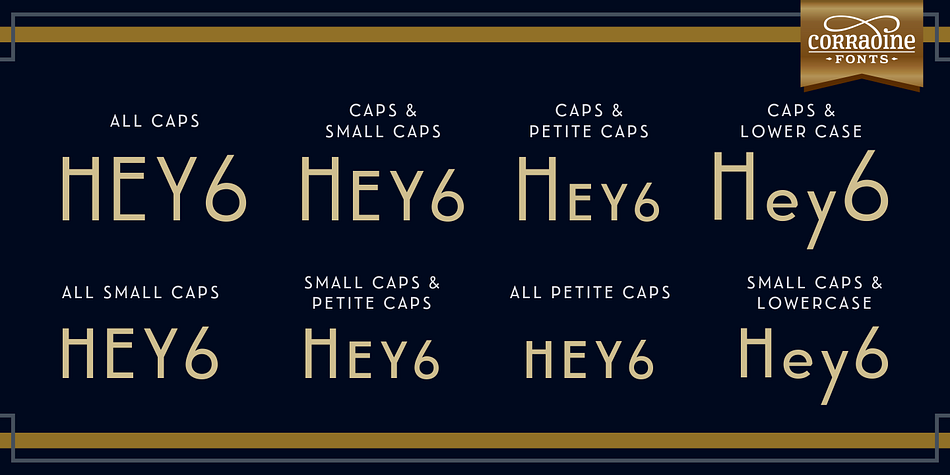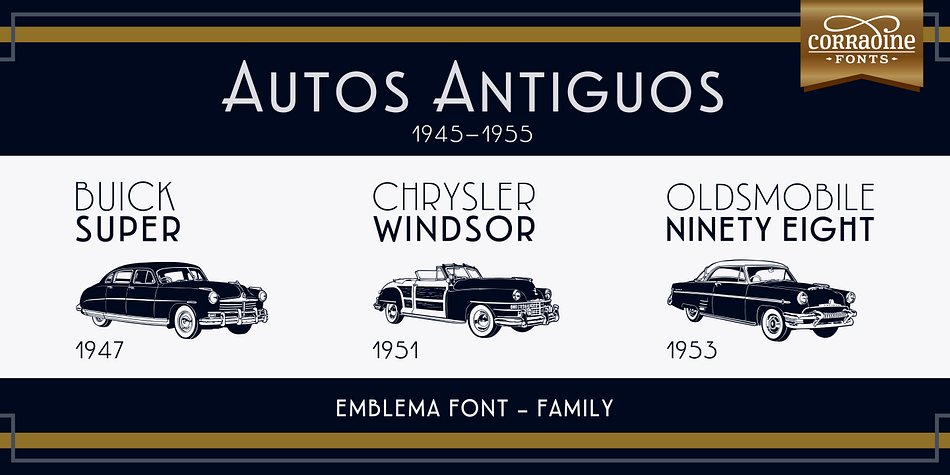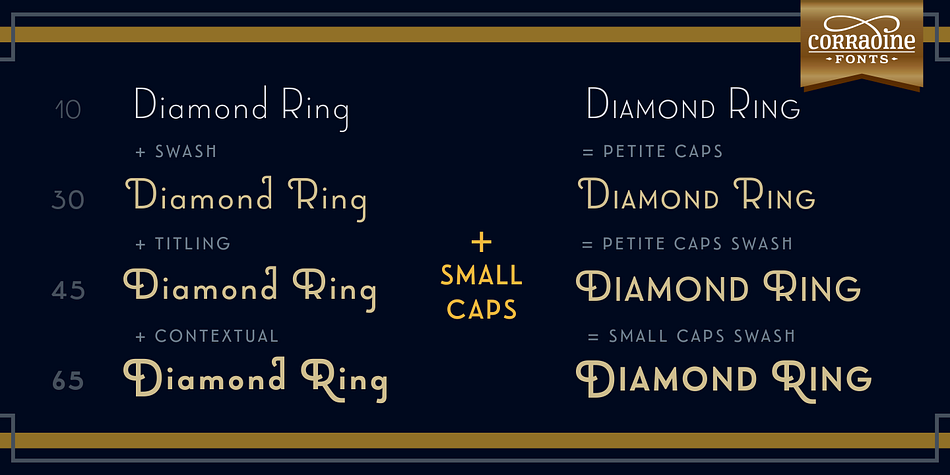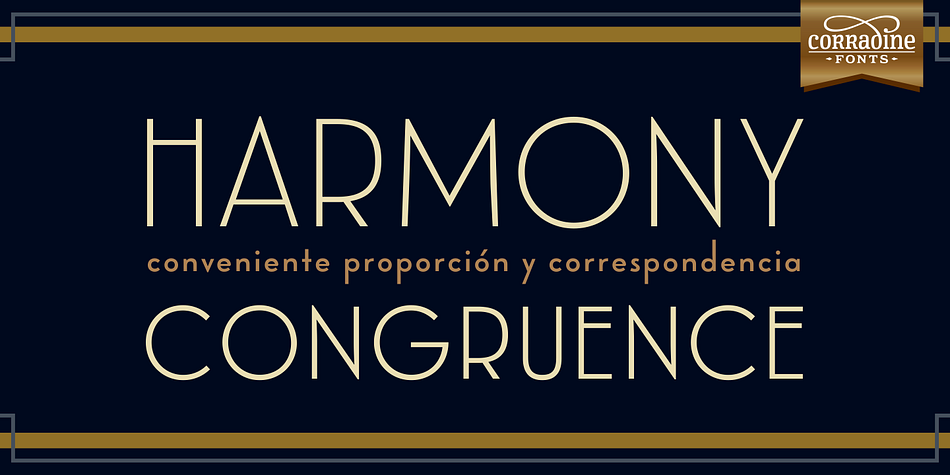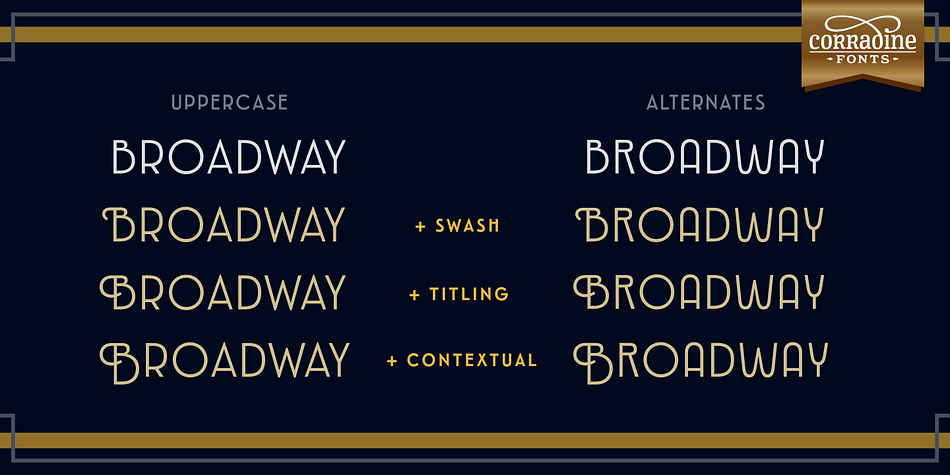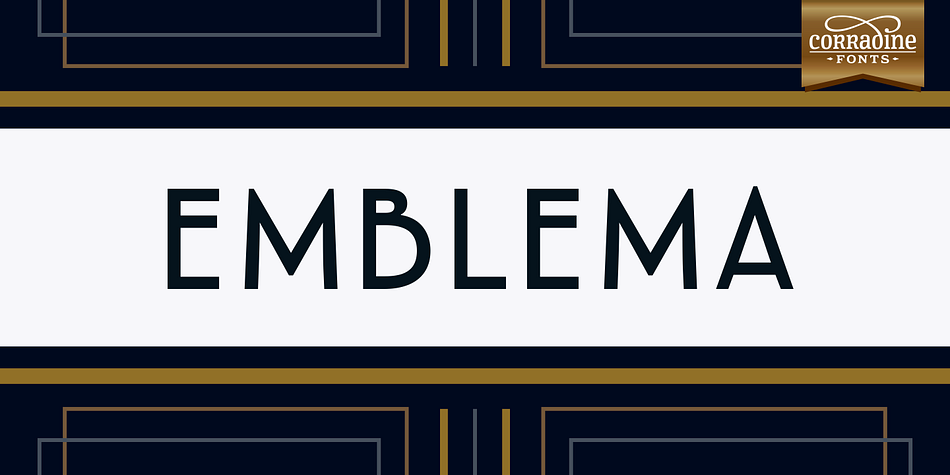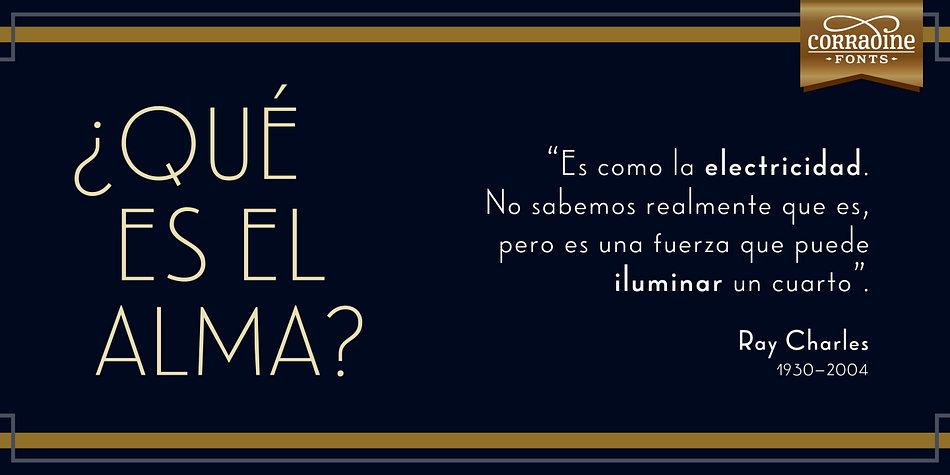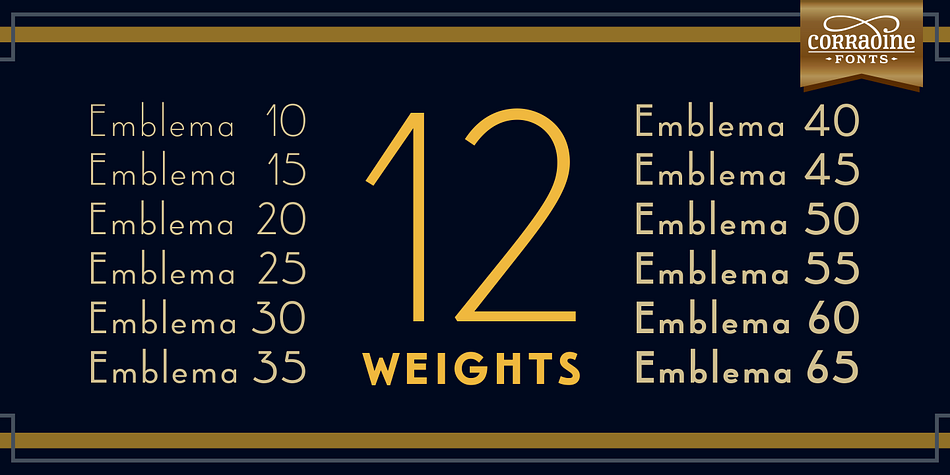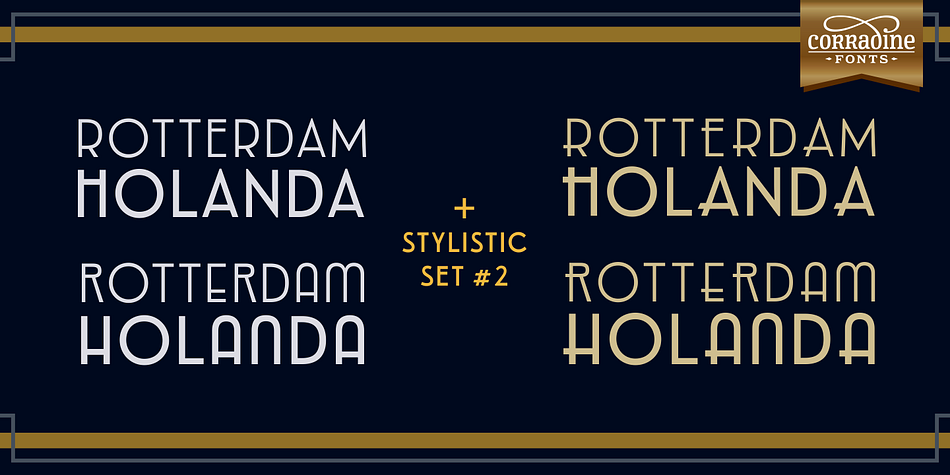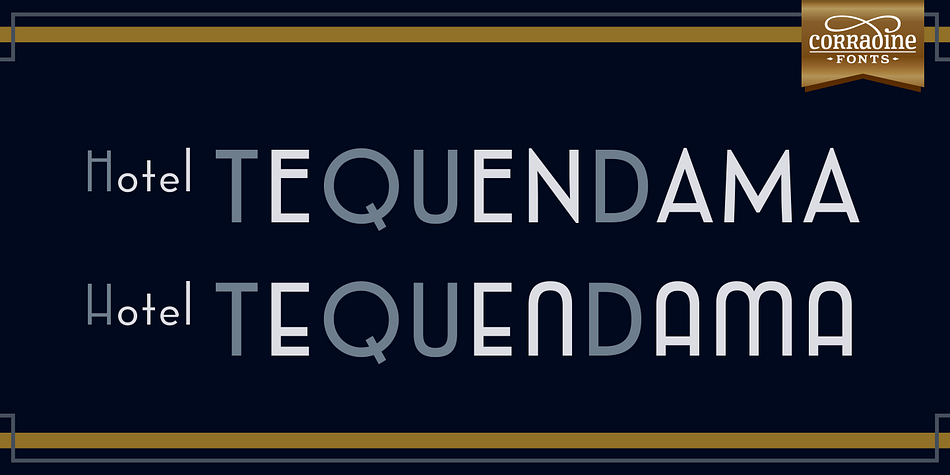
Designed by Duván Cárdenas, Emblema is a sans serif and art deco font family. This typeface has twelve styles and was published by Corradine Fonts.
Emblema is an evocative font that remains Art Deco style from early decades of the 20th Century. Its geometric shapes gives a clean and modern look to the designs where it is applied.
Emblema was designed in 12 near but different weights and is ideal to fit the same weight in a single piece using different point sizes.
Open Type users could acces to extensive set of alternative and ornamental characters including 3 different size sets of caps, so versatility is the most important advantage you can take using this font family.